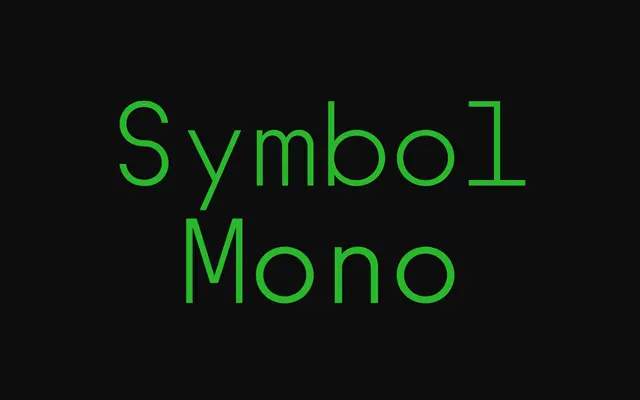
BST Symbol Mono specimen from British Standard Type
A monospaced geometric sans from British Standard Type, drawing on DIN and Bauhaus principles across seven weights with distinctive bowl-filling behaviour at heavier settings.
Built on simplified geometric forms with minimal tapering at junctions, the design exhibits an intentional rawness as bowl-to-stem connections progressively fill towards black through the weight range. Seven weights from Thin to Bold are included, alongside stylistic sets featuring Space characters and stemless forms for varied typographic application. The family suits display and text settings where a disciplined, almost industrial geometry is the goal.
Described explicitly as a geometric sans serif with DIN and Bauhaus influences; the monospaced variant of BST Symbol fits the mono category given its fixed-width construction and geometric basis.